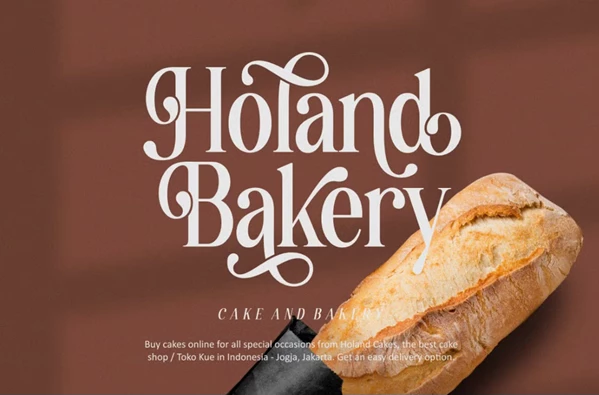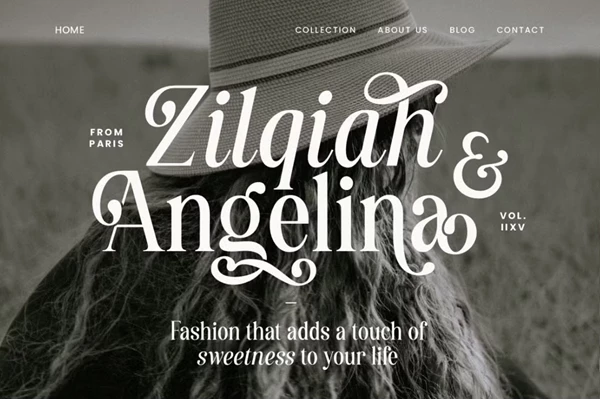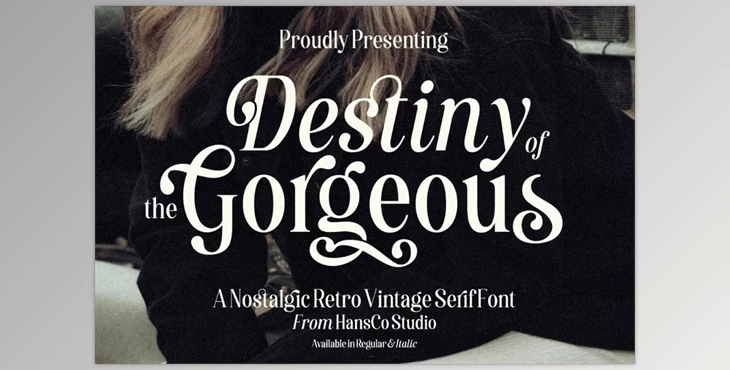
Destiny Gorgeous Font:
Just like its name, the Destiny Gorgeous font is exquisite. It is a feminine retro serif sure to attract attention at first glance. It's ideal for swash logos and branding. This font can also be used in crafts, posters, and even on packaging. While focusing on character options, this font does not disappoint with alternate characters, both in upper and lower case, along with ligatures. Destiny Gorgeous fonts also support upper and lower case, numbers, punctuation, and many different languages.
- Uppercase & Lowercase
- Number & Punctuation Marks
- Multilingual Support
- Ligature & Alternate Characters